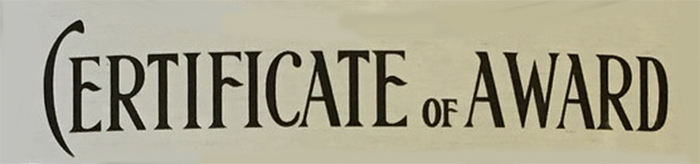
Serif font...
I got nothin' on this one. I thought it might be a LHF font, but don't see any match there either.
If it is indeed a font, I'm not sure if these are CAPS or lowercase letters.
Yes, I thought it was going to be an easy one. I suspect that the first "C" is from a different font.